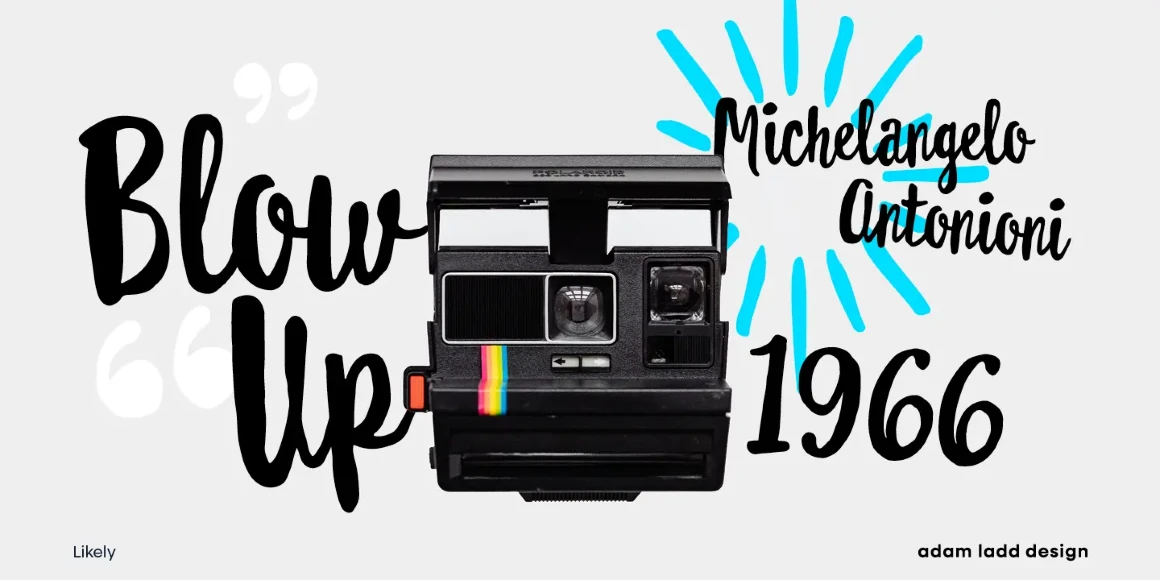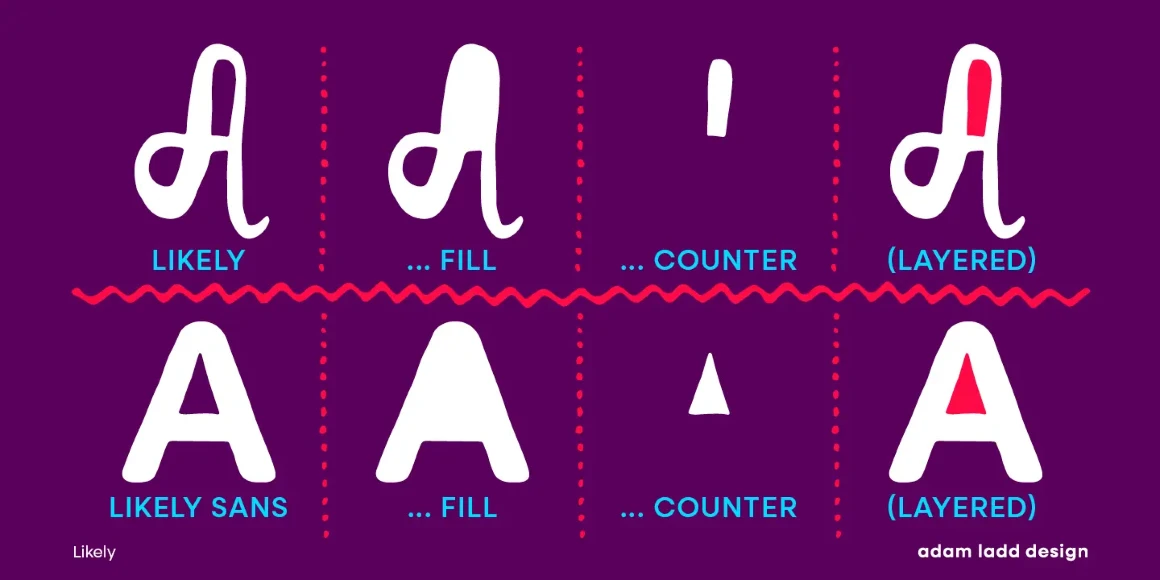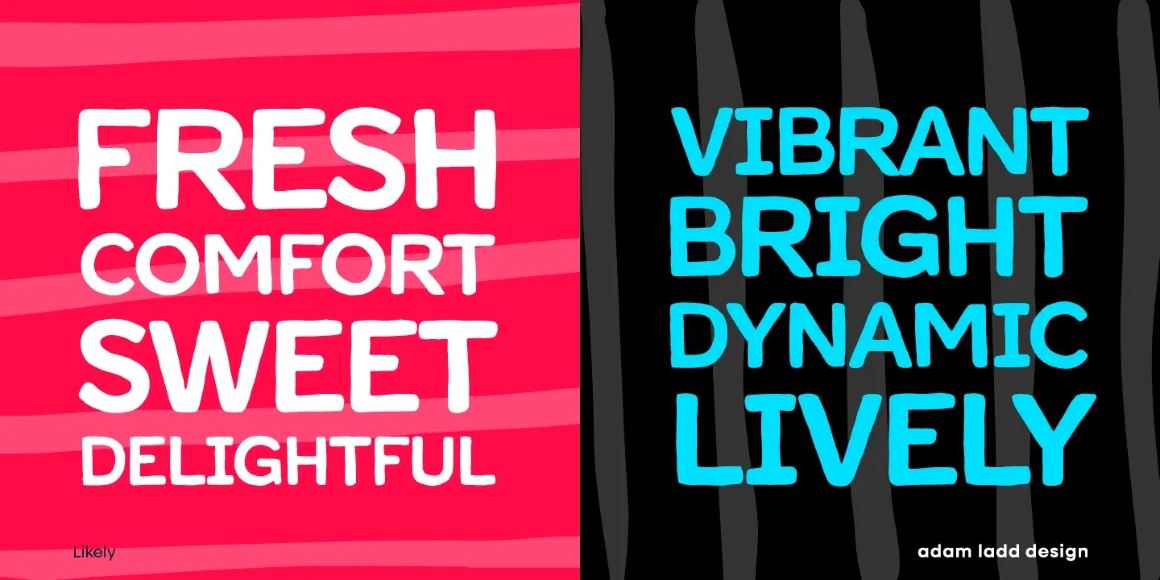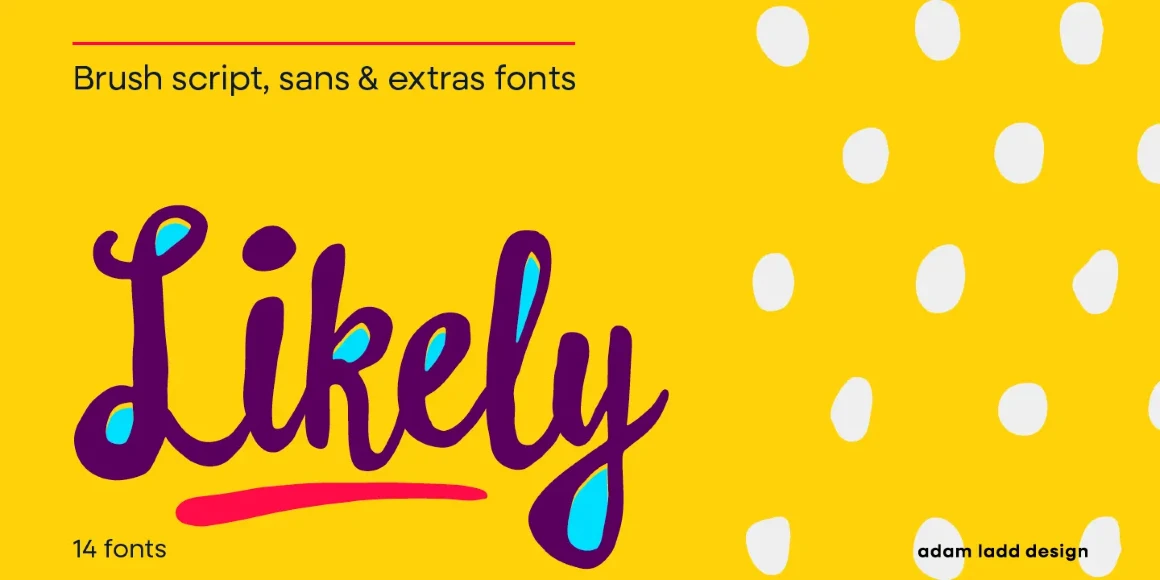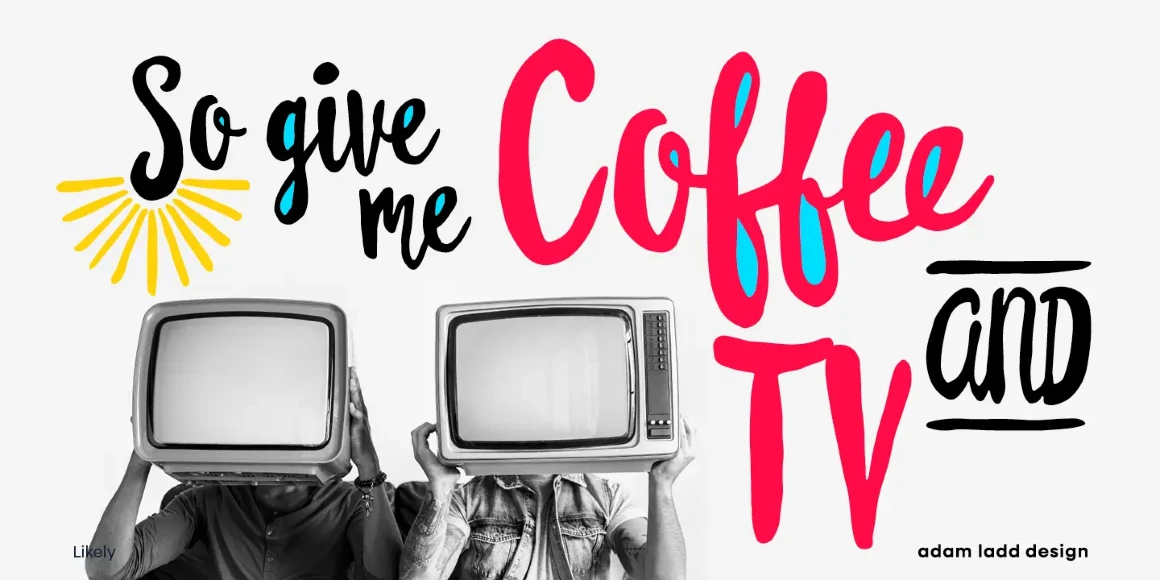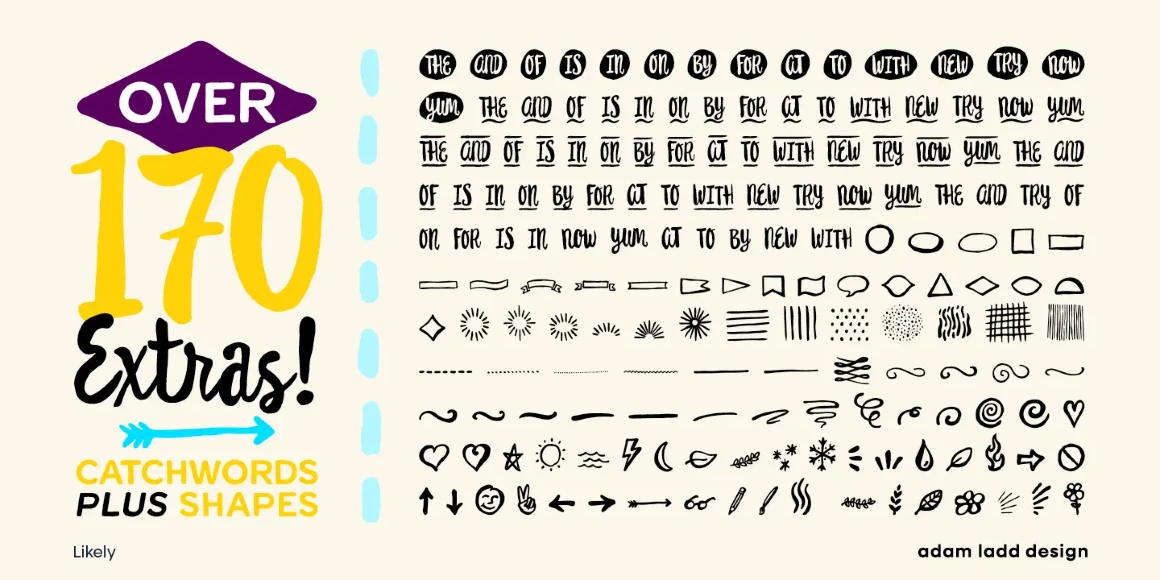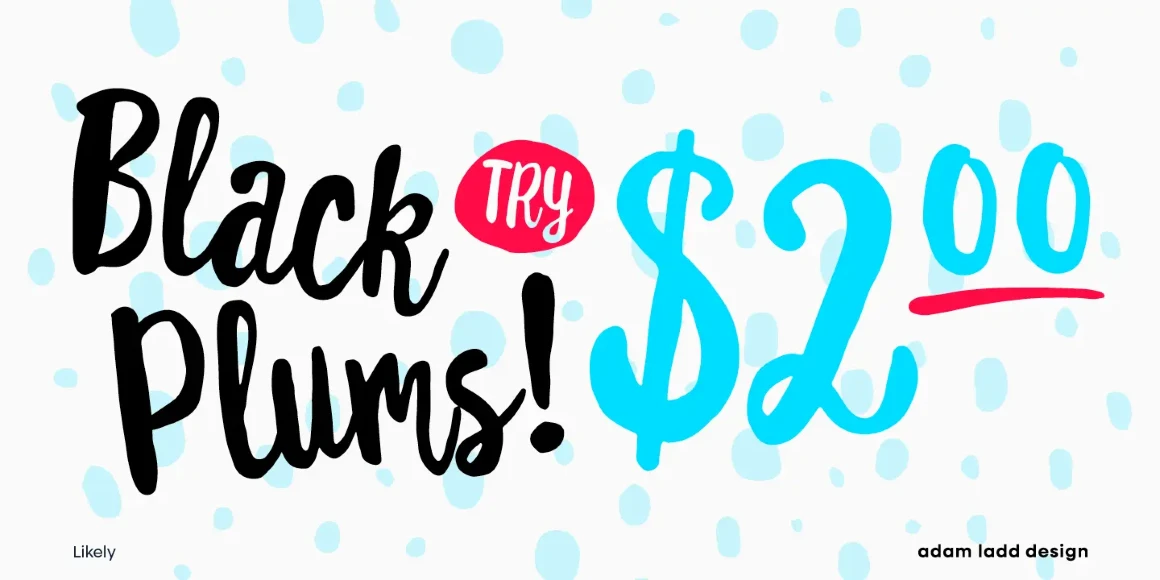
Likely Sans
By Adam Ladd
Likely Sans is a hand-lettered sans that pairs nicely with Likely, the joyful brush script family. These typefaces are designed to work together as a naturally vibrant package. Colorize Likely Counter to add playful dimension to book jackets; explore Likely Catchwords to add appeal to your magazine covers; or create patterns and borders for invitations and newsletters using Likely Shapes. There are also ligatures, alternates, and swashes for certain characters to add playful flair to your work.